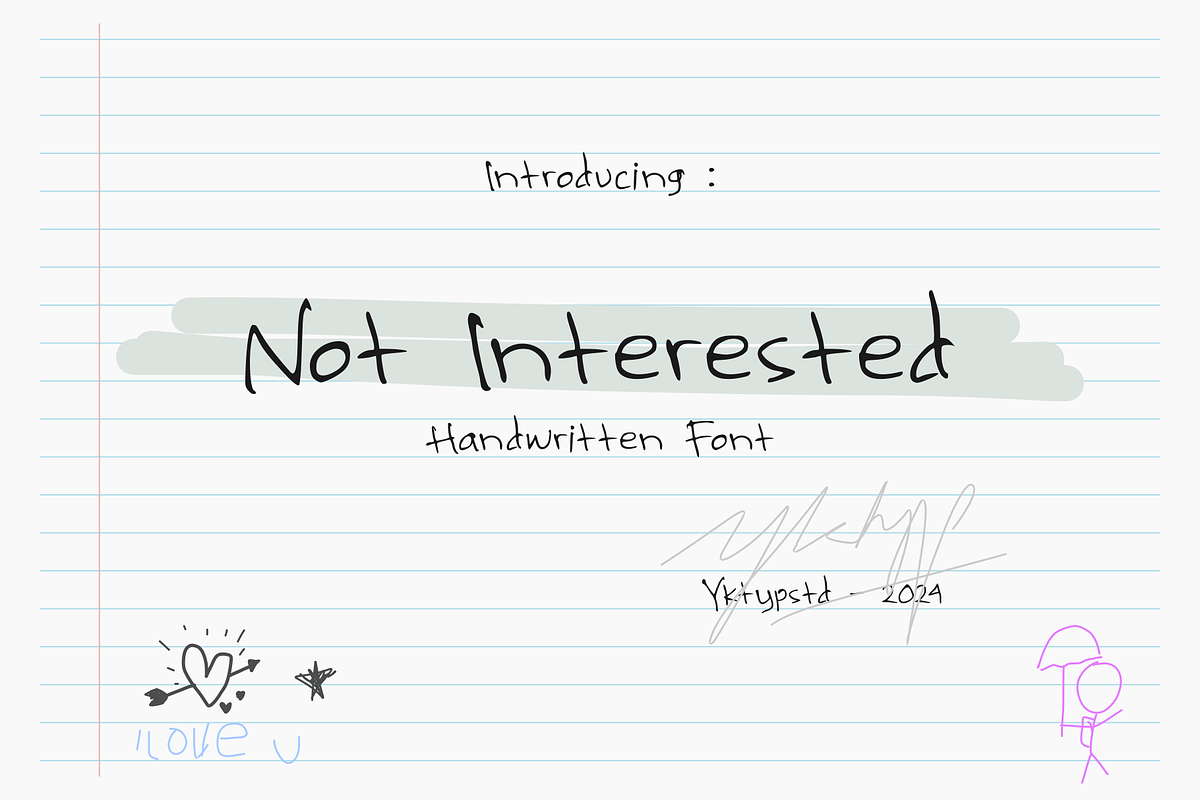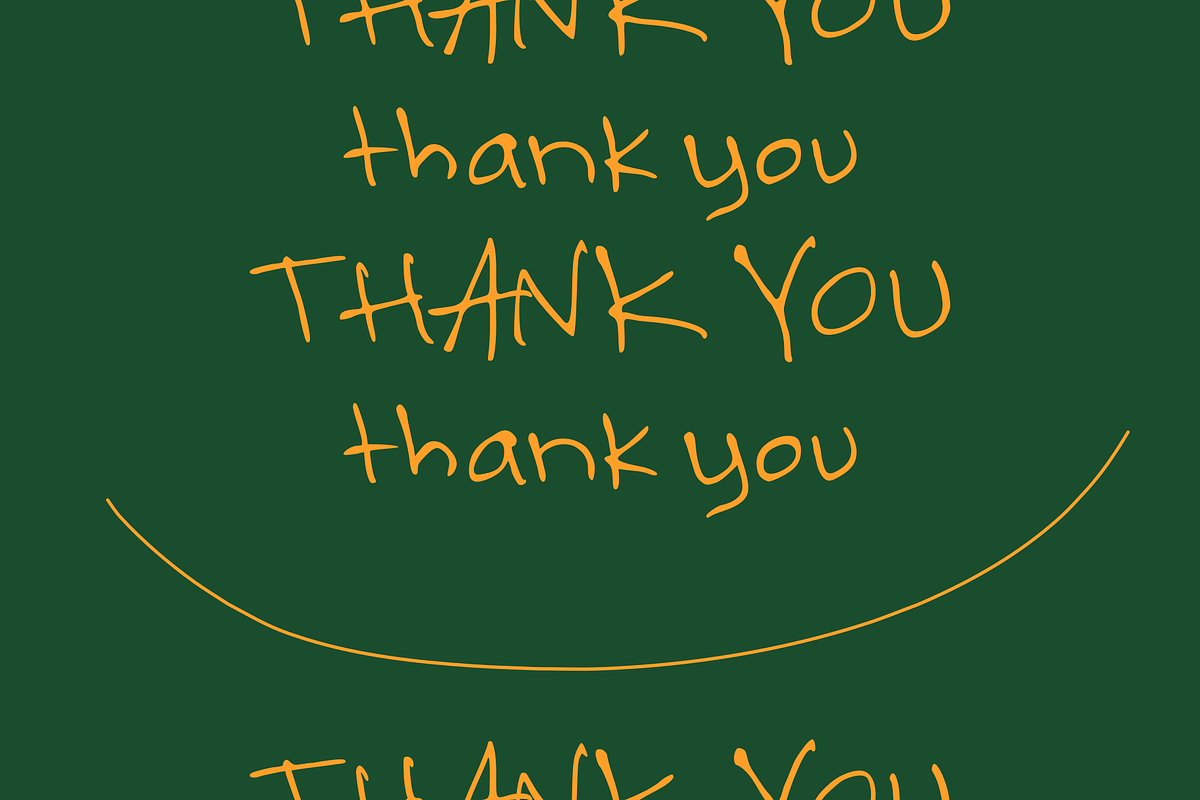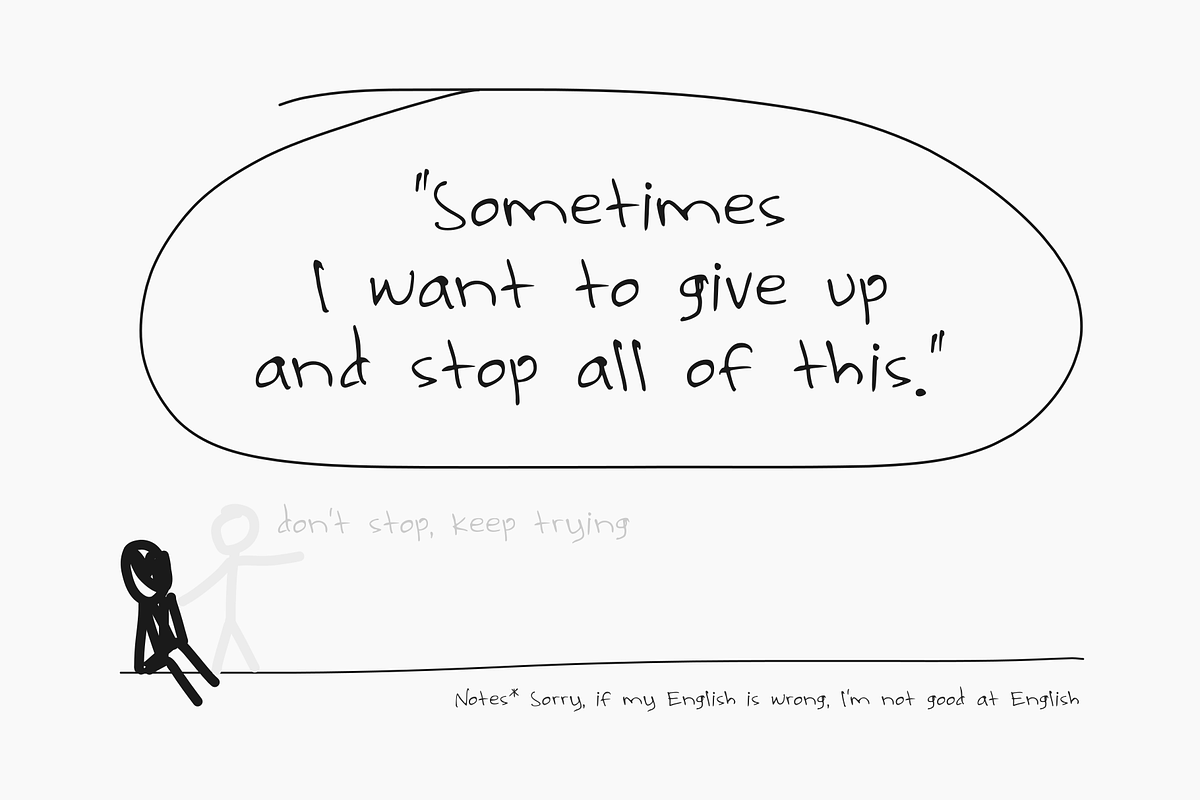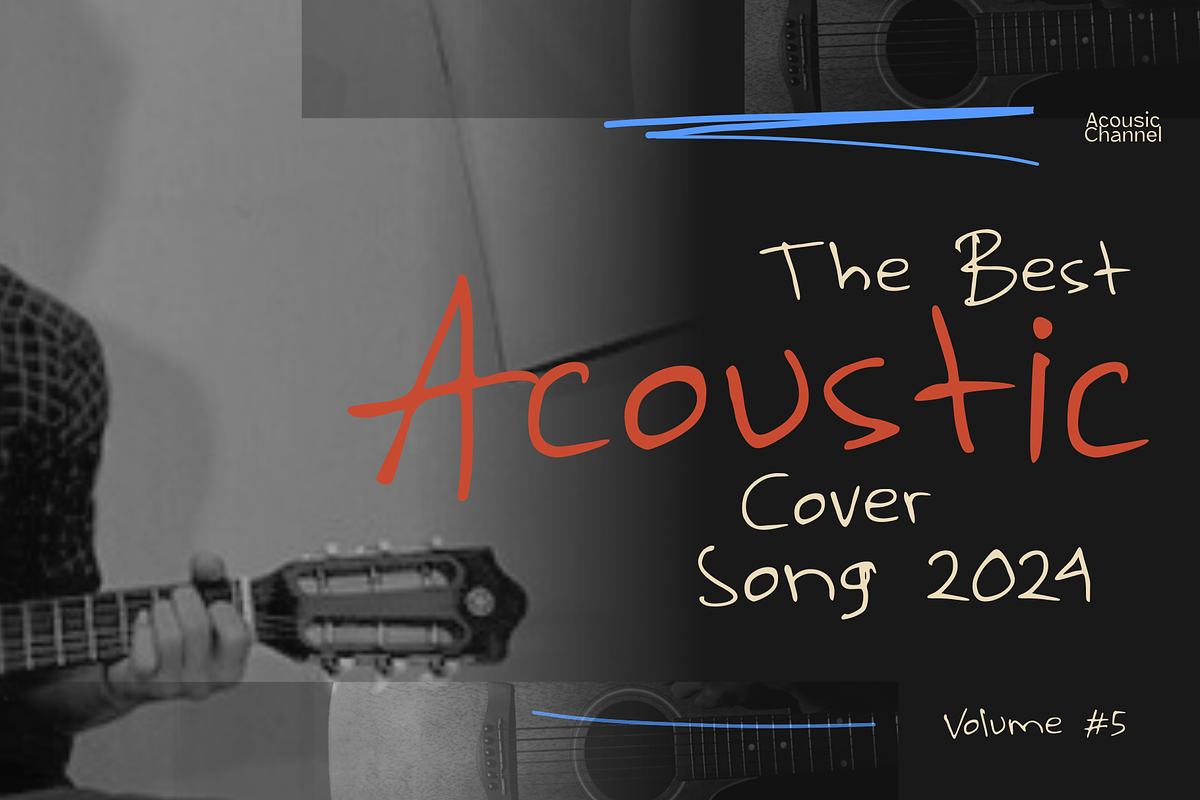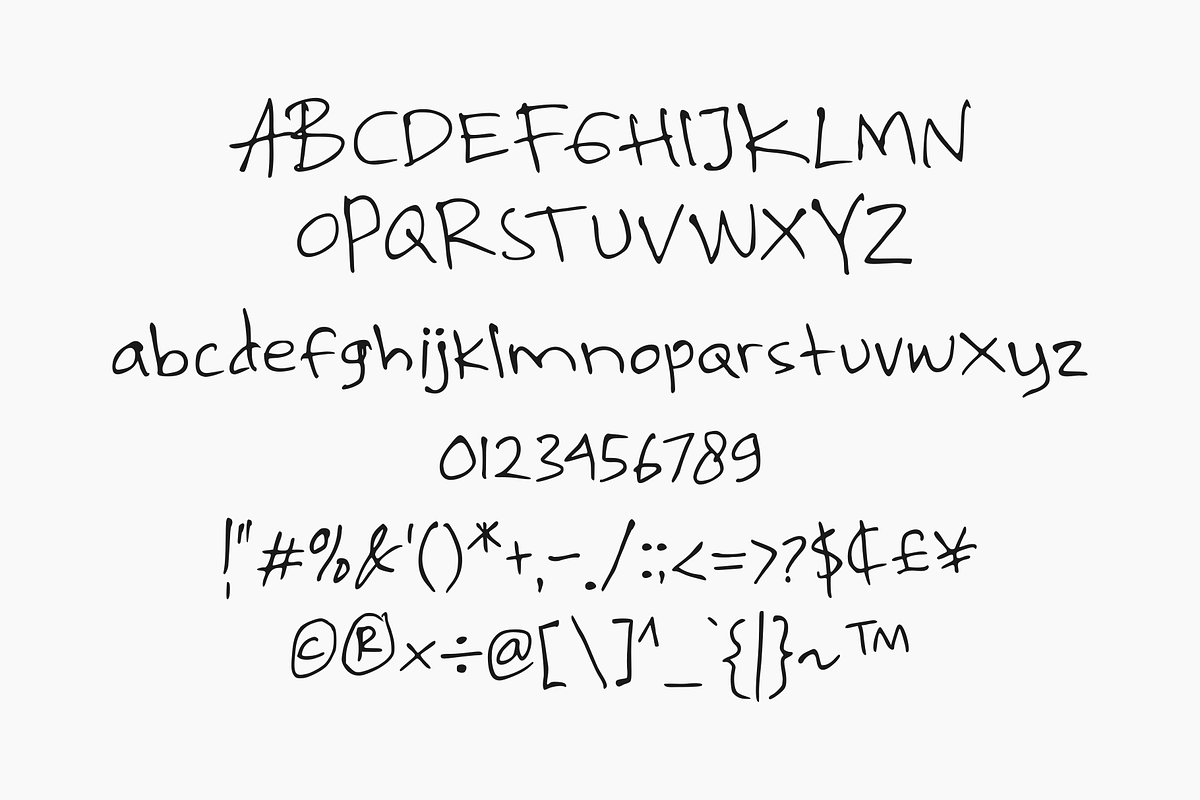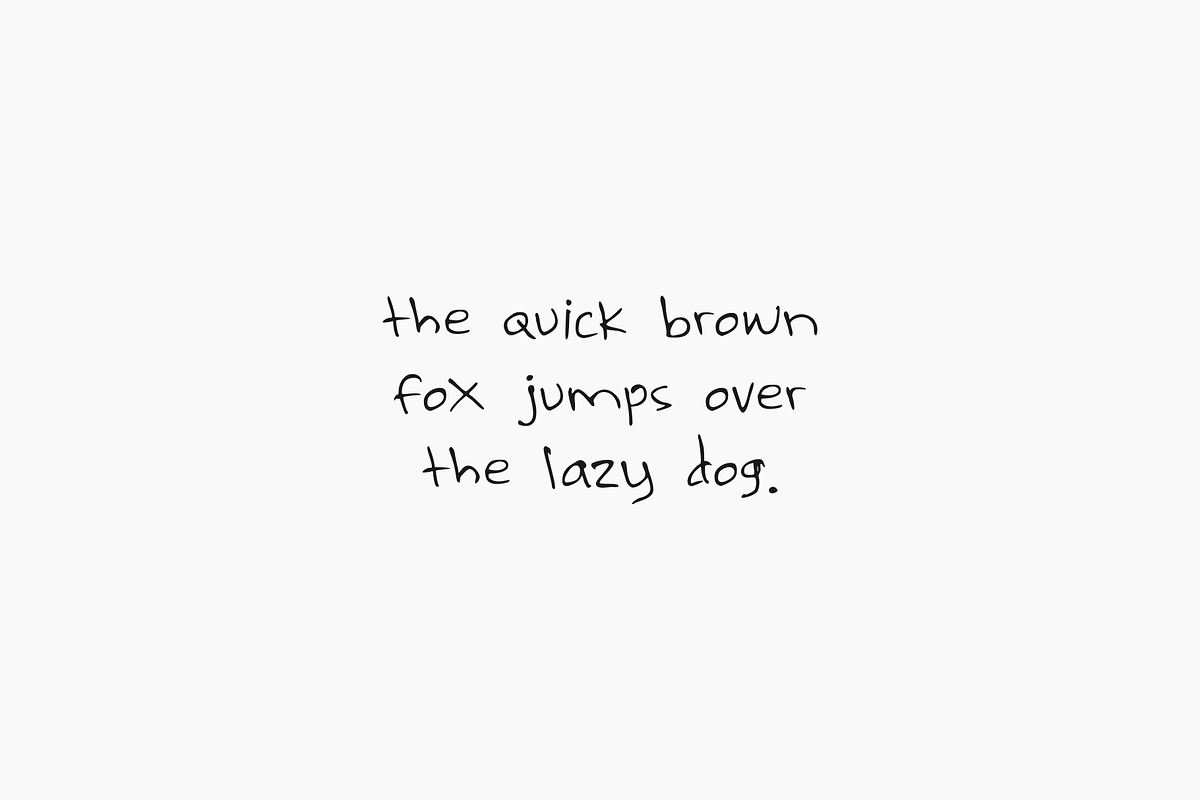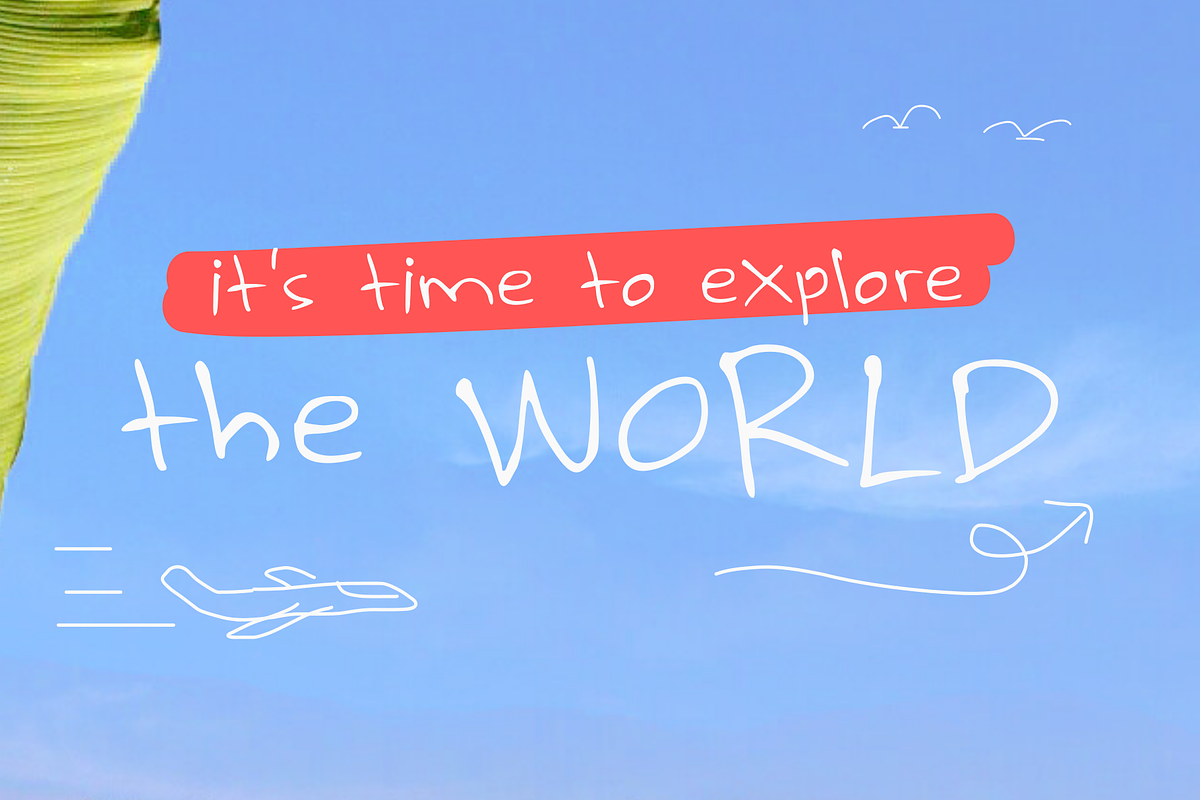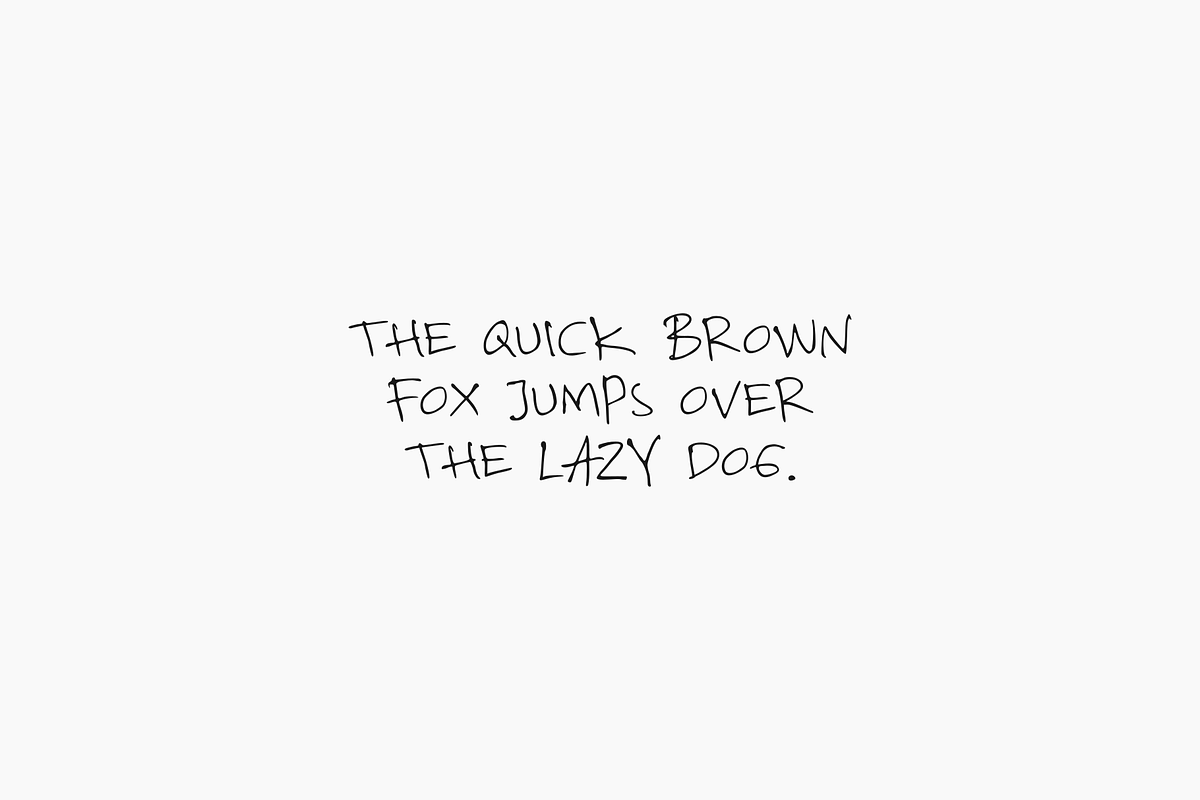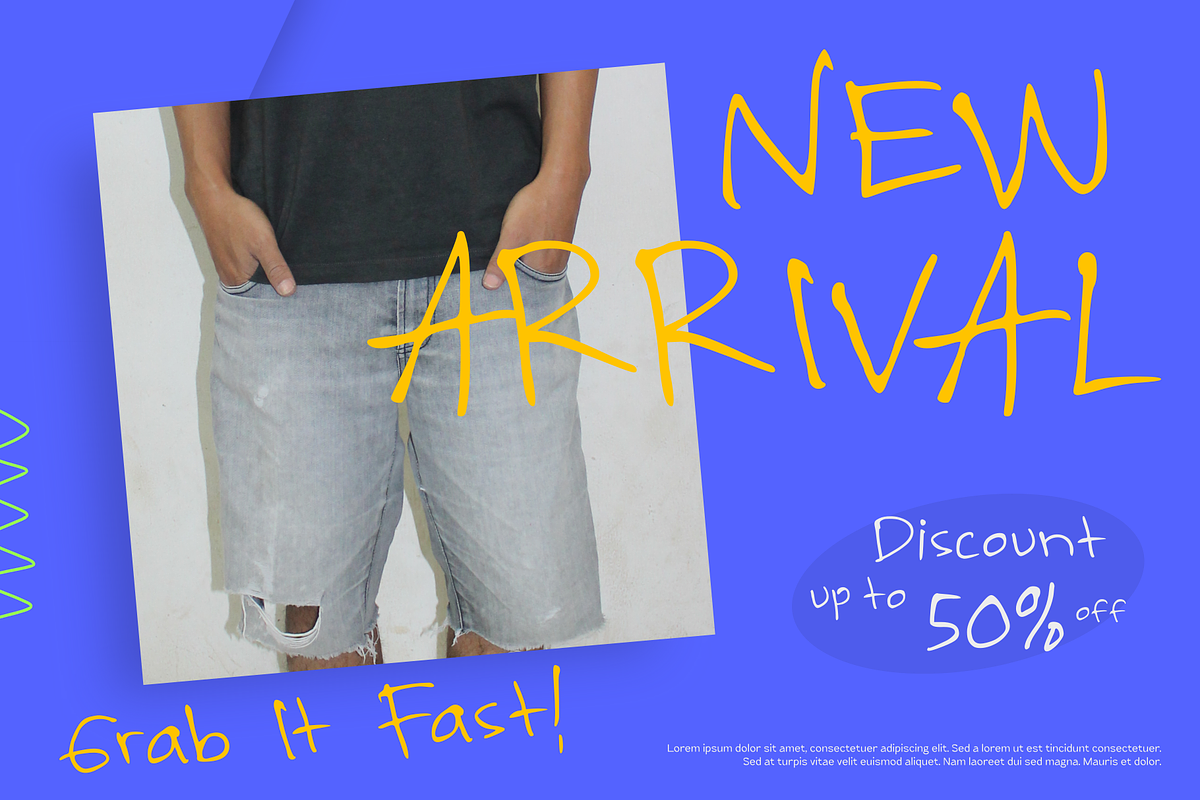
Notinterested
Introducing a charming and unique handwritten font crafted with a childlike style that adds distinctiveness to any project. This font brings a fresh and fun tone that enlivens design endeavors, effortlessly infusing creativity into your work. Its versatility makes it an excellent choice for social product campaigns, magazine covers, branding initiatives, banner displays, invitation cards, posters, book covers, and menus.
The font's joyful spirit is particularly effective in projects aimed at evoking a child's touch. Despite being ultra-light, it offers a powerful presence, serving as a dynamic tool ready to instantly elevate your designs. Perfect for any creative task, this font is sure to bring a playful and spirited energy to your projects.